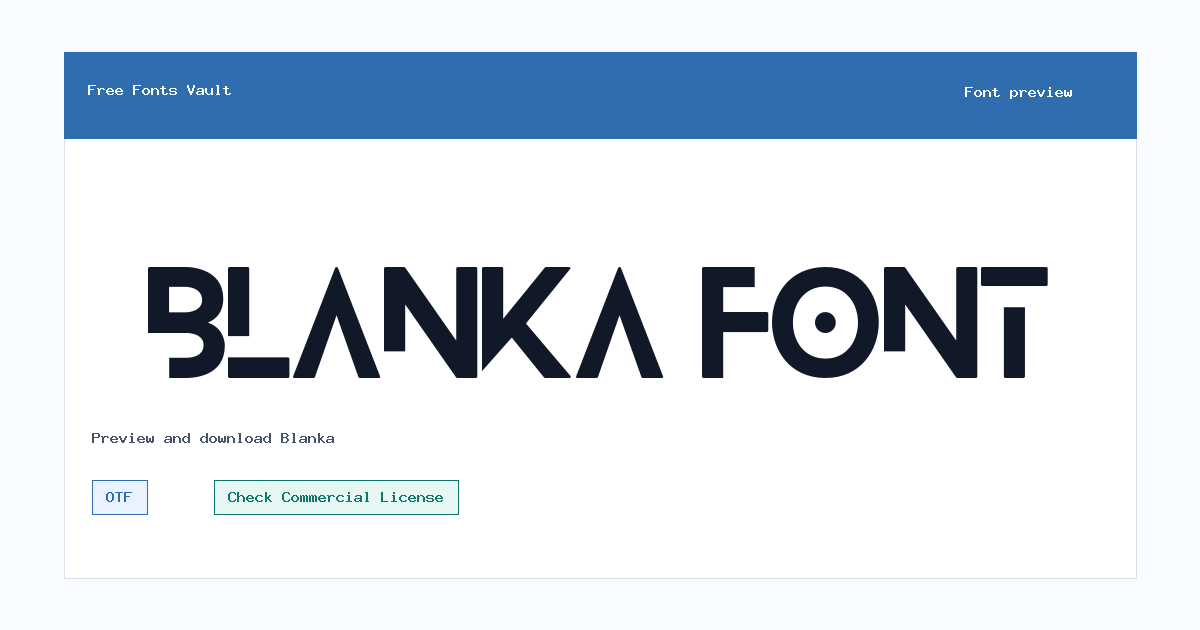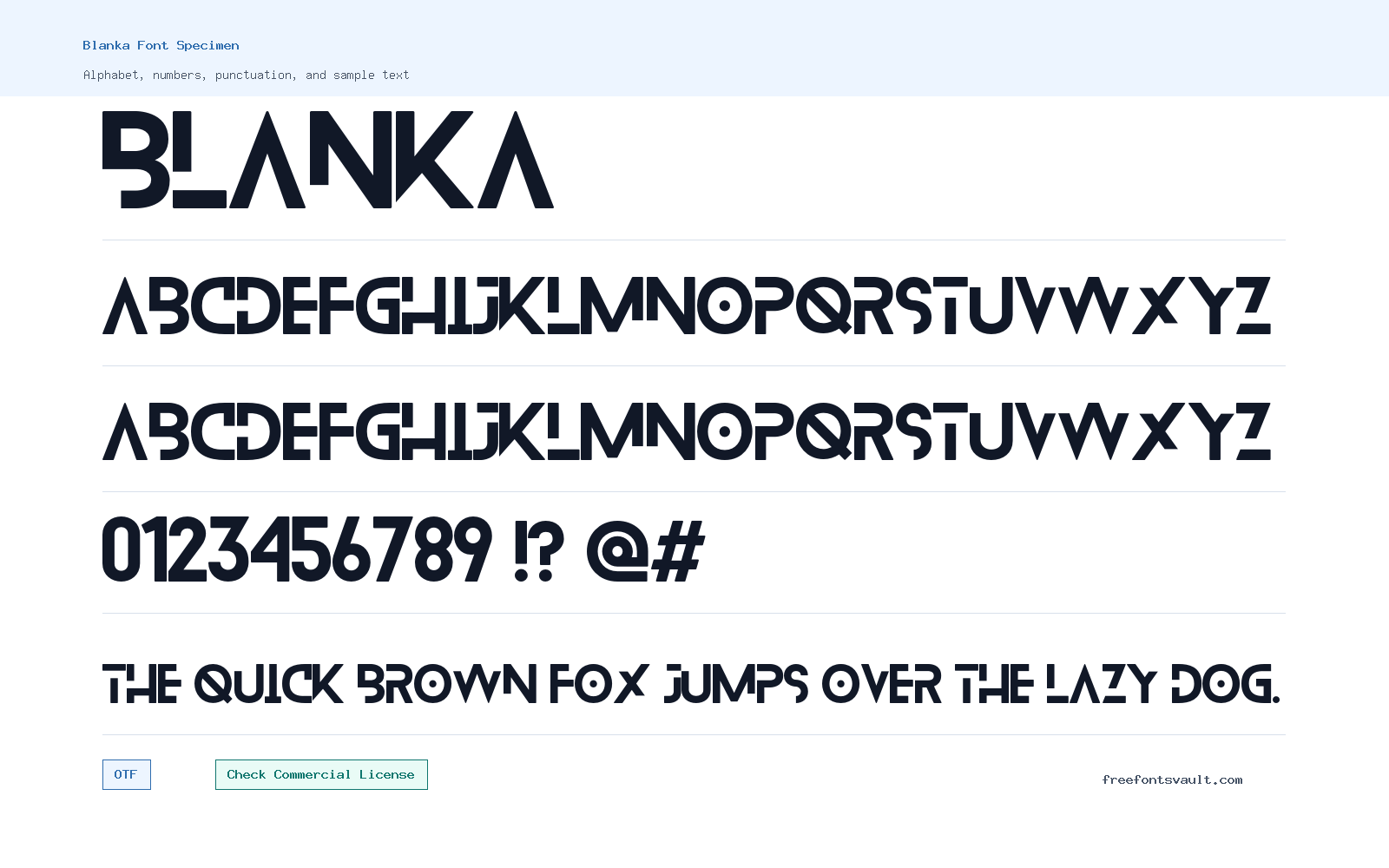
Blanka
- Designer Pedro
- Foundry PYRS Fontlab Ltd. / Made with FontLab
Blanka font.
Blanka is a sharp display font built for short, eye-catching text. Its cut-out letter shapes give headlines and logo-style words a futuristic, minimal look without needing extra effects.
About Blanka Font
Blanka works best when the text is brief and the size is large. The letterforms use missing strokes and open gaps, so the design has a clean stencil-like feel rather than a standard reading face. Use the preview to test the exact word you plan to set, because some letters rely on negative space and may need more room than a normal sans serif.
Blanka is memorable because it removes parts of the strokes while still keeping the basic letter shapes readable. That makes it useful for futuristic logos, fashion posters, music covers, gaming graphics, tech thumbnails, and short brand experiments. It is not a neutral everyday typeface; its value comes from using it sparingly where the missing strokes become the main visual hook.
Preview the exact word before relying on it, especially if the text contains short letters or unusual combinations. Some words will look cleaner than others because the open gaps affect each letter differently. Strong contrast, generous size, and simple backgrounds will usually give the best result.
- Display lettering with open, cut-out strokes
- Large headlines, posters, and cover graphics
- Short logo-style words, titles, and social media visuals
Blanka is credited to Pedro. The font information also names PYRS Fontlab Ltd. / Made with FontLab as the foundry or manufacturer entry.
Use generous size and spacing, especially for all-caps words. Pair Blanka with a plain sans serif for body text so the display style stays clear and readable.
Is Blanka good for body text?
No. Blanka is better for short display text. The open letter shapes are more effective in large titles than in long reading copy.
Does Blanka include multiple weights?
No. The listed family includes one regular style at weight 400.